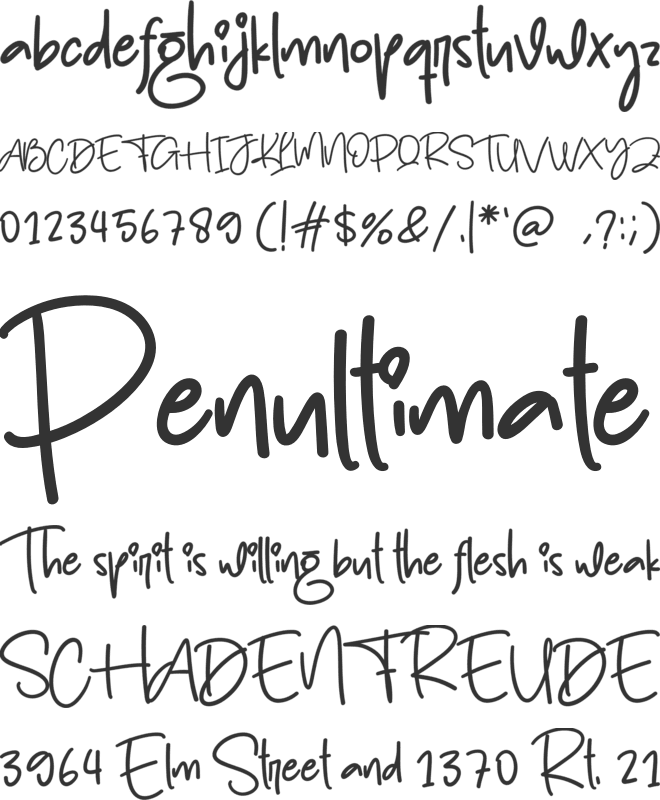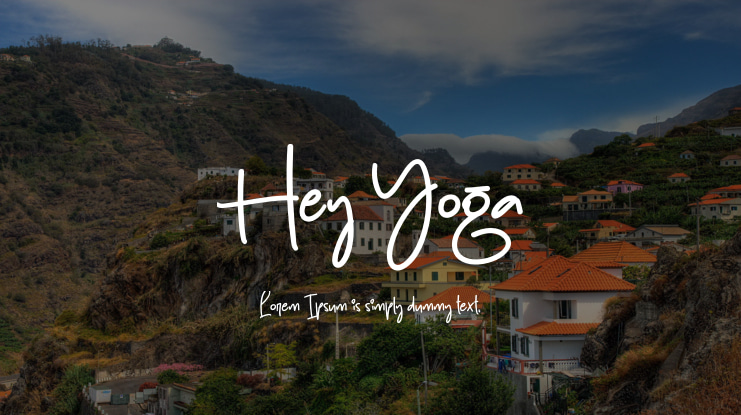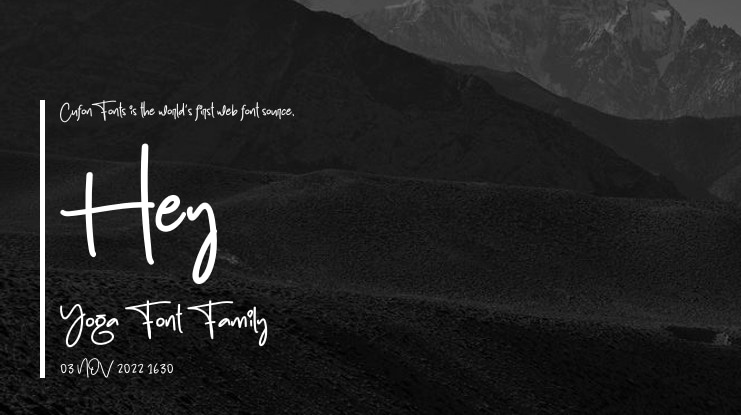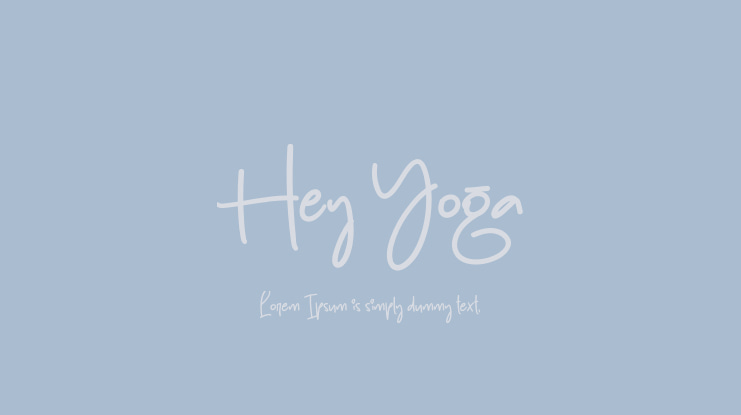
Our latest stylish letter designs are perfect for various uses including wall displays, wedding invitations, social media post logos, advertisements, product packaging, labels, photography, watermarks, invitations, stationery, and any project that requires elegant handwriting.